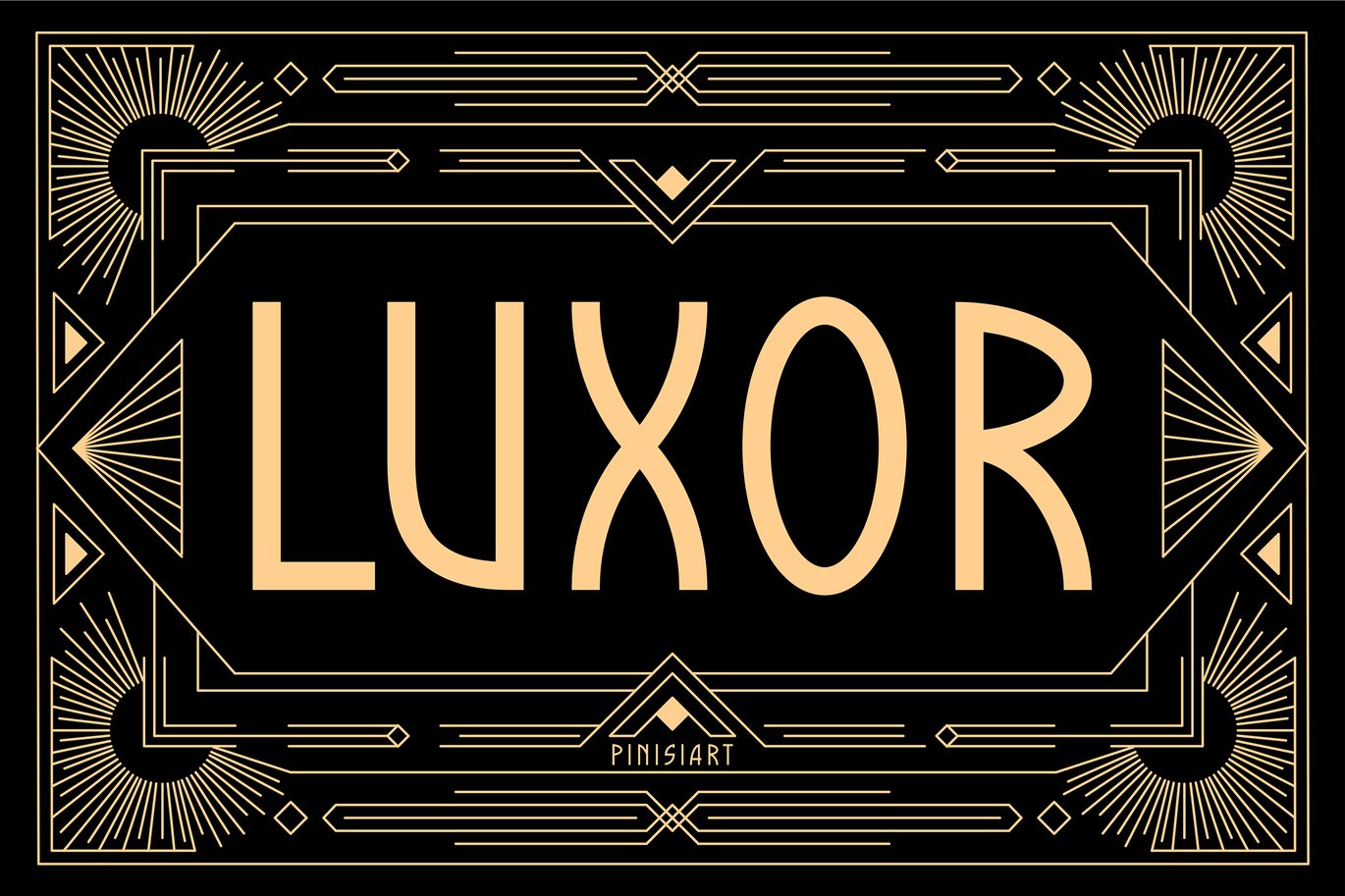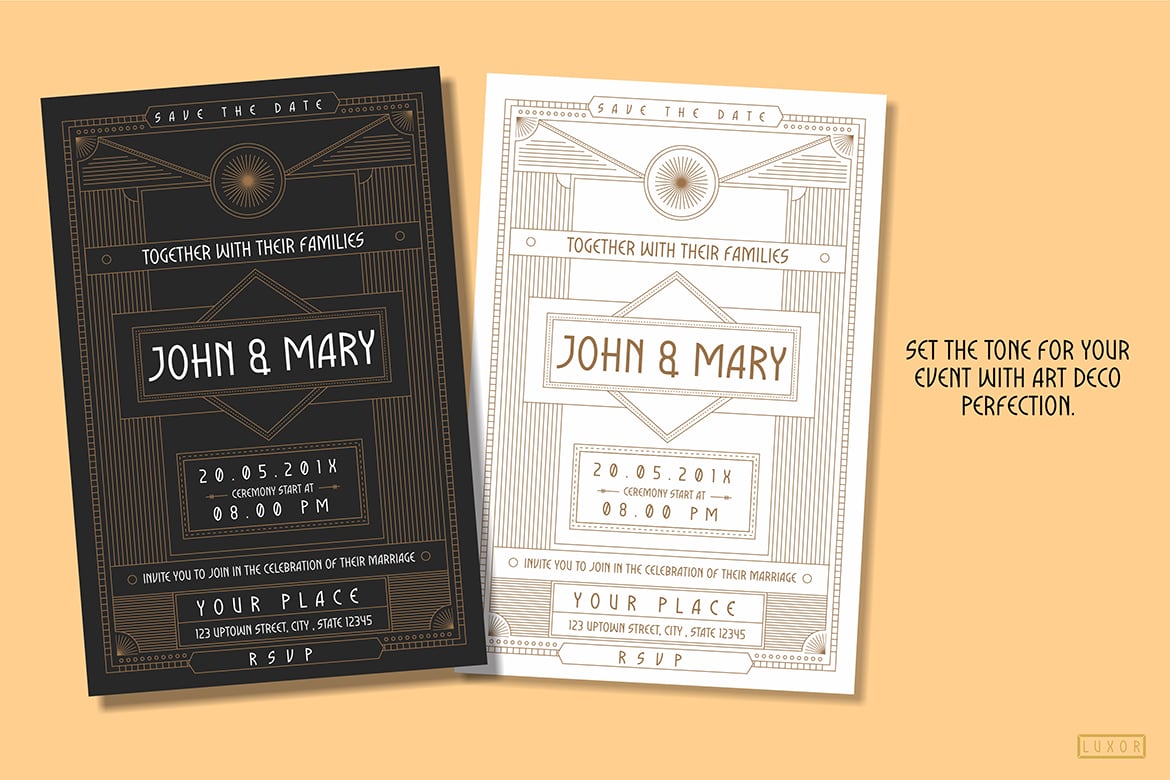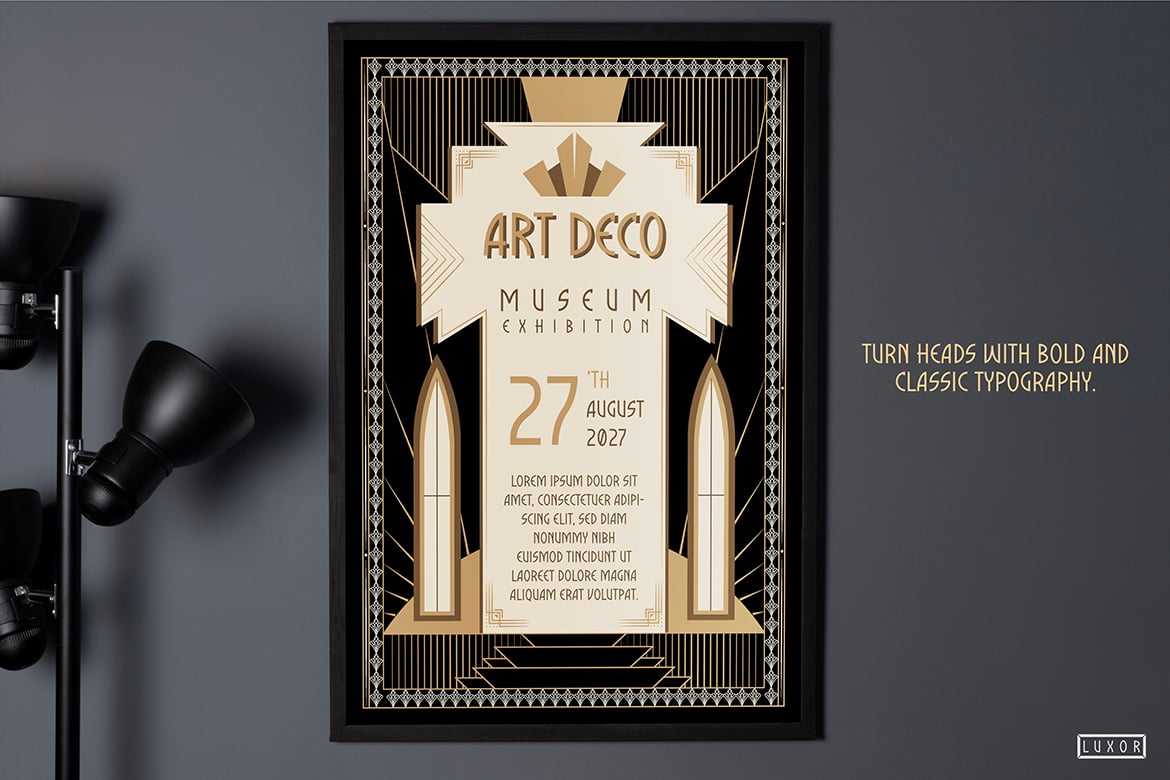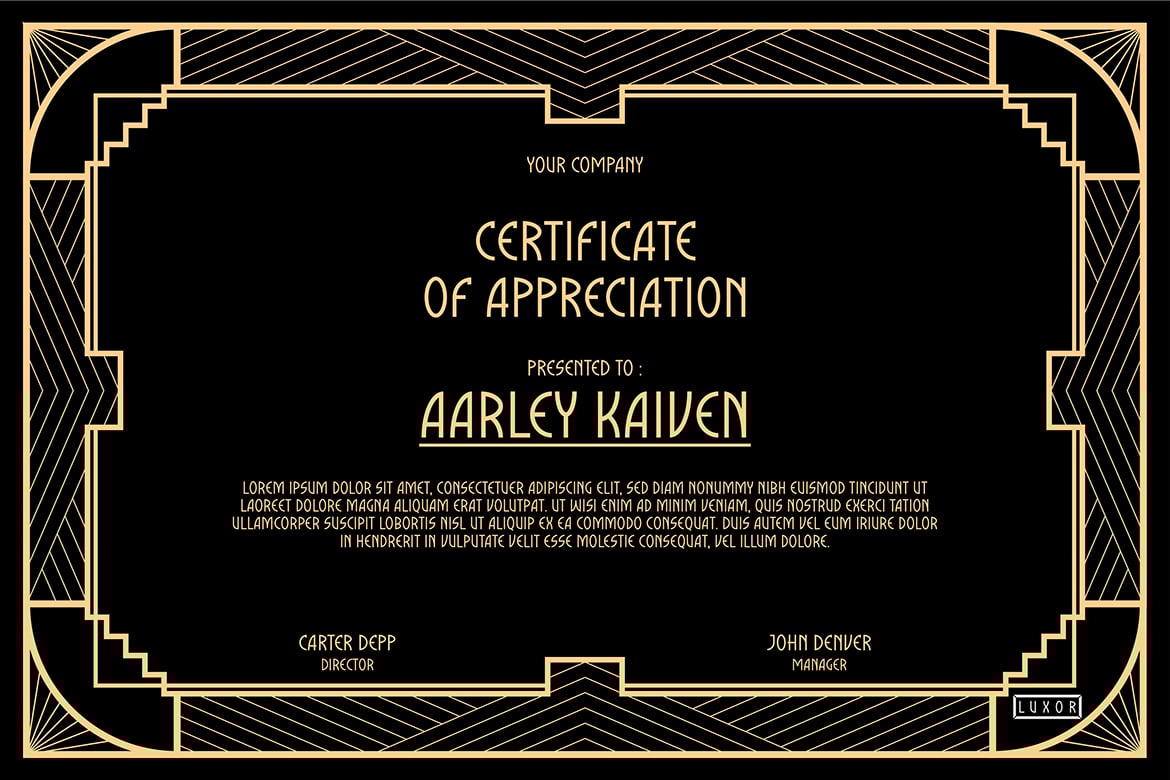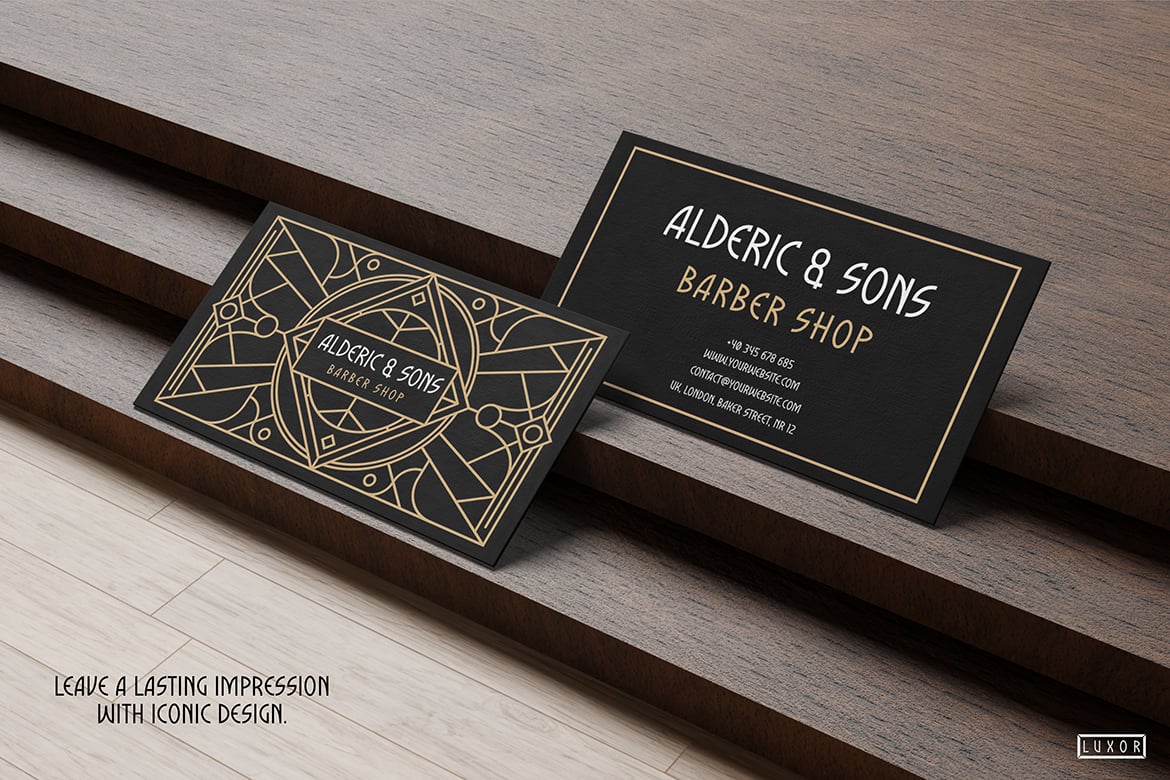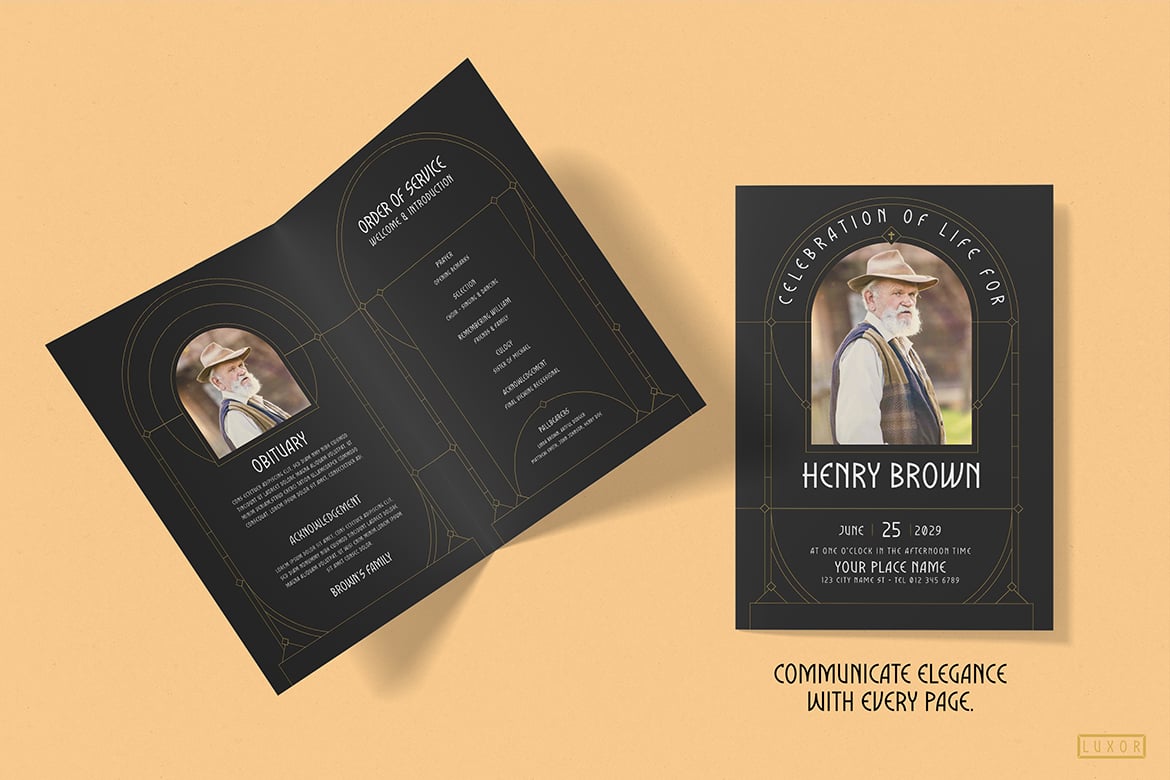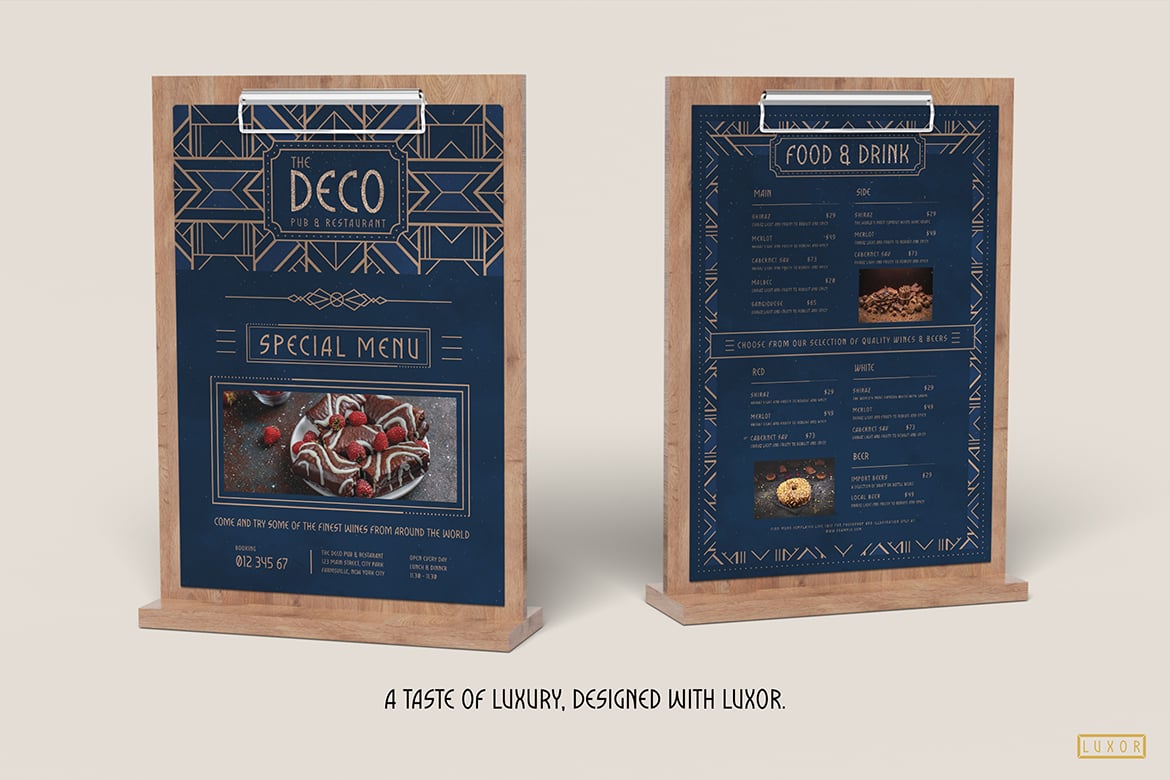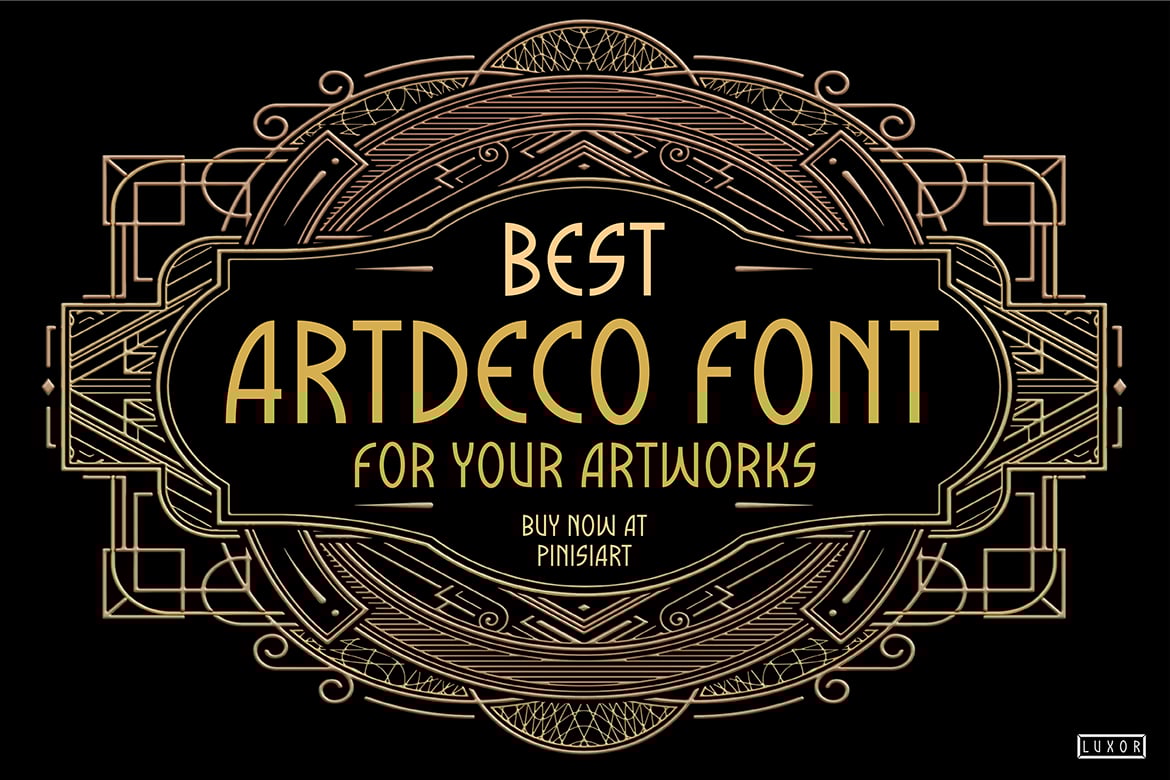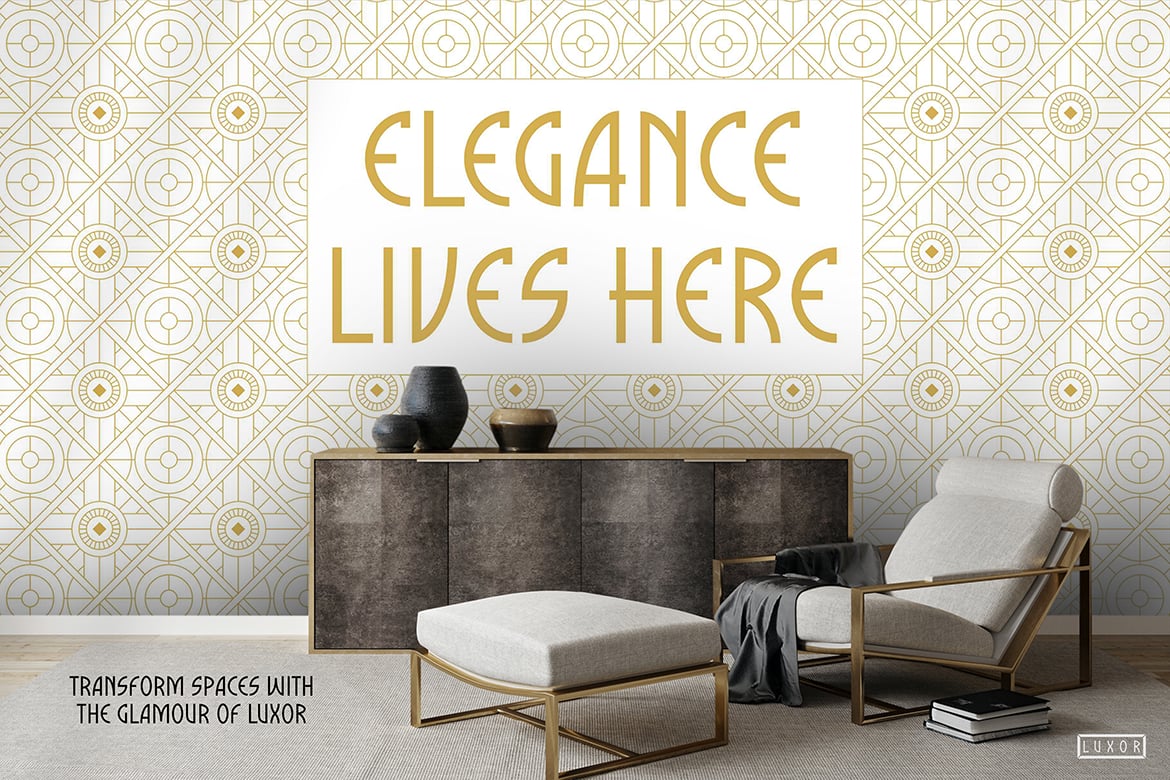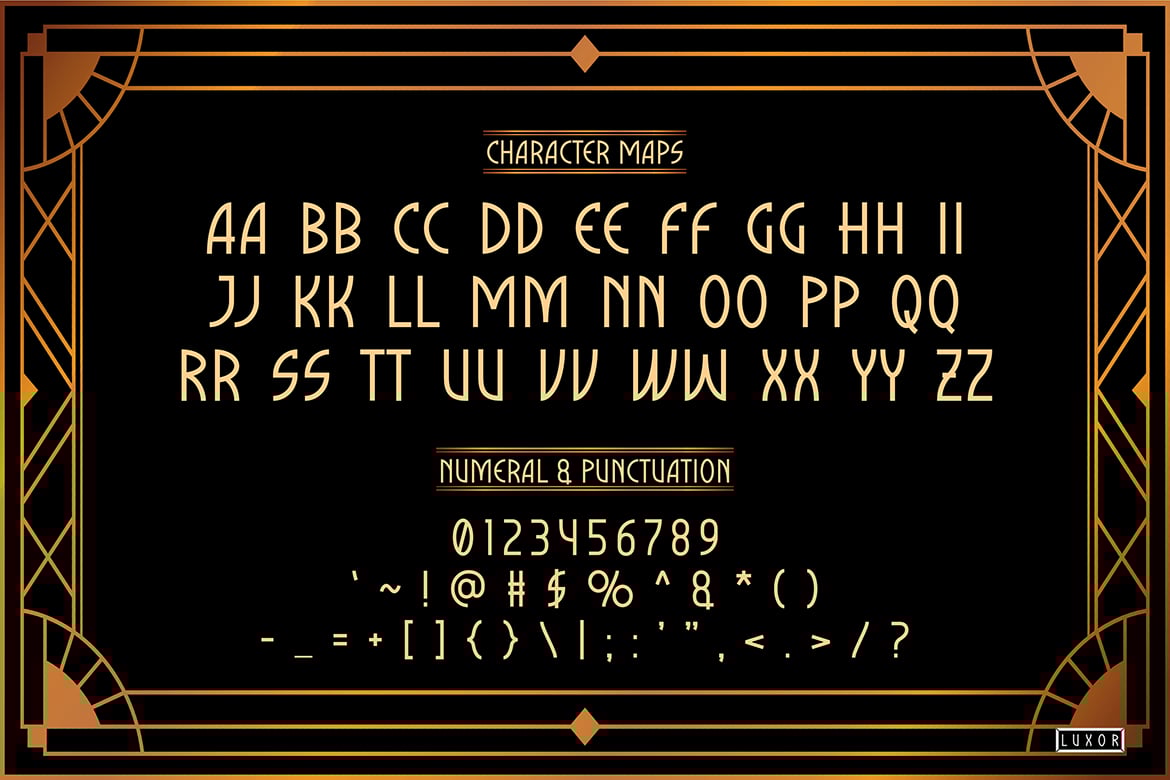
Art Deco Font – Luxor
Luxor is an elegant display font infused with the timeless charm of the Art Deco era. Its bold geometric lines and intricate details exude sophistication and luxury, making it a perfect choice for high-end and visually striking designs. Luxor brings a sense of grandeur and refinement, ideal for projects that aim to capture the allure of vintage elegance with a modern twist.
Luxor is perfect for Art Deco branding projects, Art Deco product packaging, Art Deco luxury logos, Art Deco business cards, Art Deco sophisticated posters, Art Deco wedding invitations, Art Deco editorial layouts, Art Deco fashion campaigns, Art Deco interior design branding, Art Deco upscale web design, Art Deco vintage-inspired advertising materials, Art Deco high-end catalogs, Art Deco boutique signage, Art Deco creative portfolios, Art Deco premium product labels, Art Deco event invitations, and Art Deco decorative typography.
Its versatile and elegant Art Deco-inspired style makes it suitable for both digital and print applications.